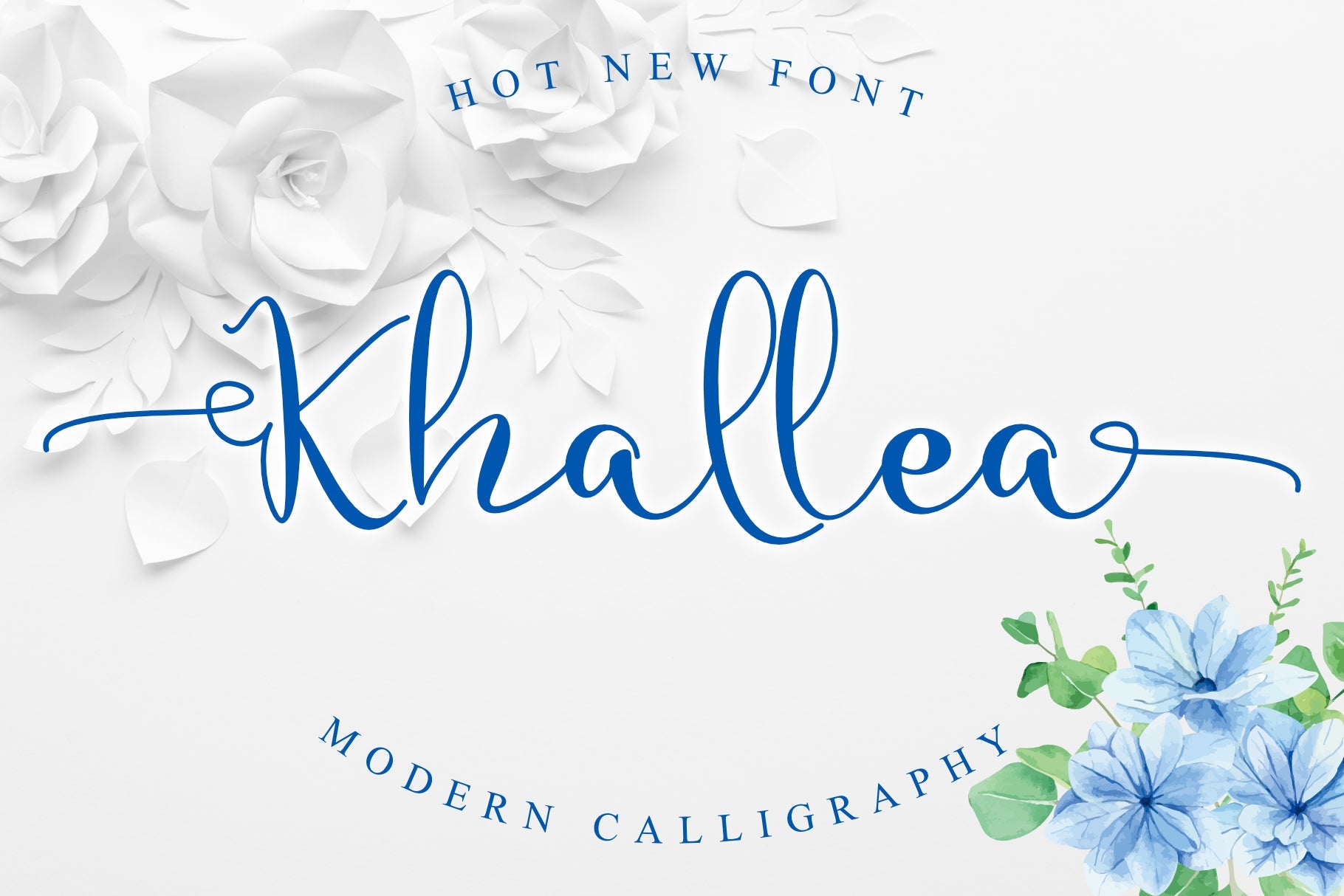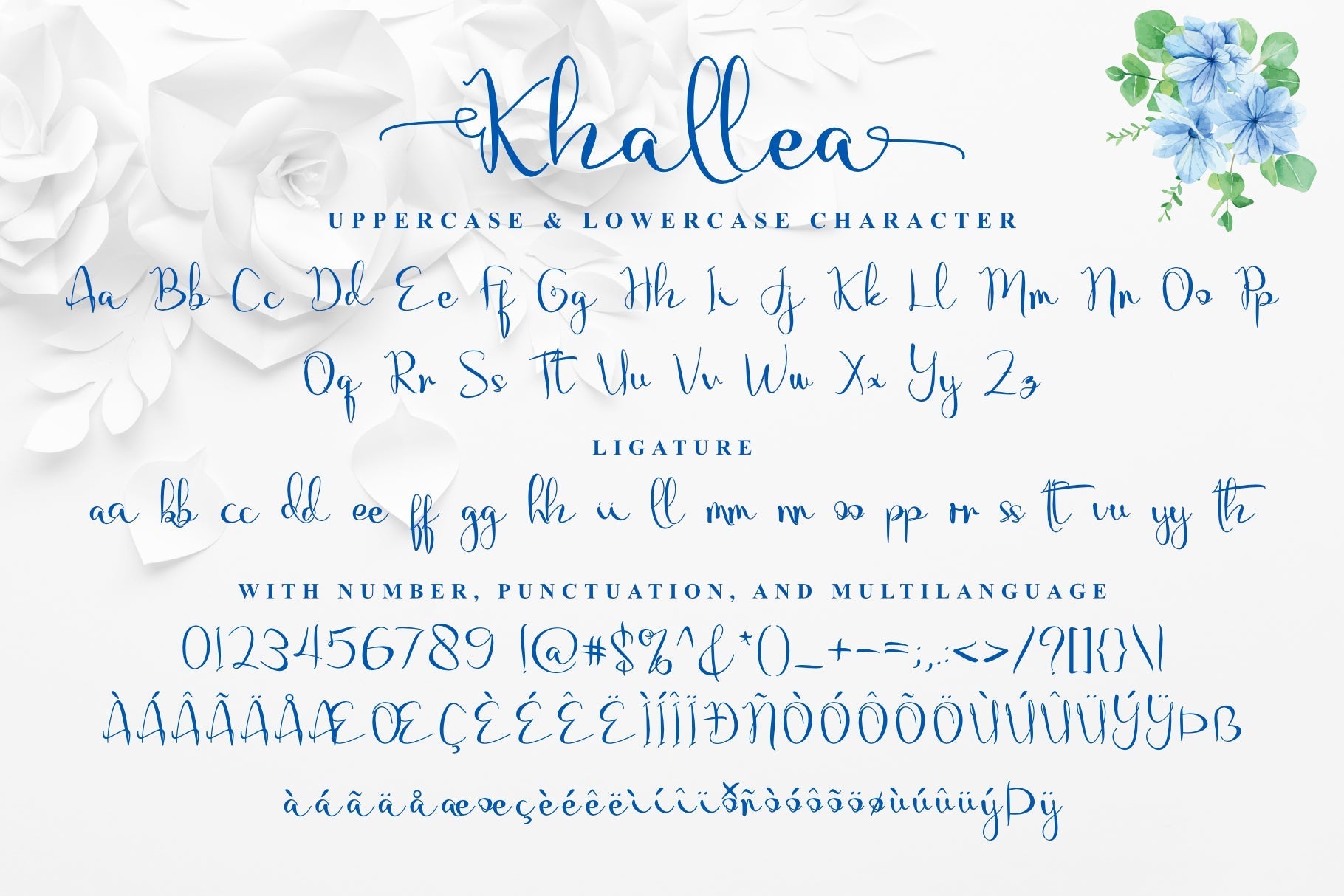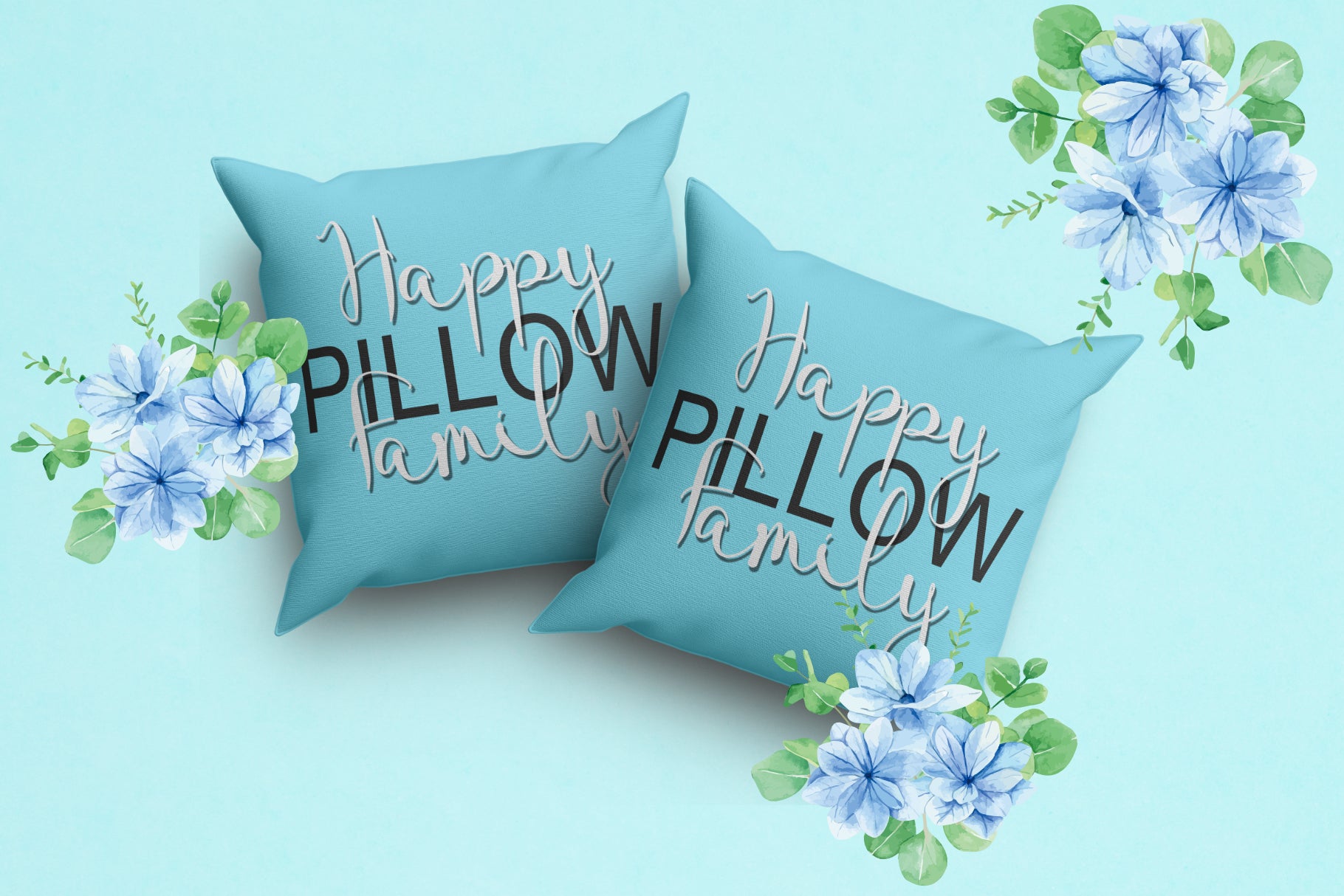
Khallea
About Khallea
Khallea is a delicate, elegant, and flowing handwritten font. It has beautiful and well-balanced characters and it matches a wide pool of designs. This font is PUA encoded which means you can access all of the glyphs and swashes with ease!